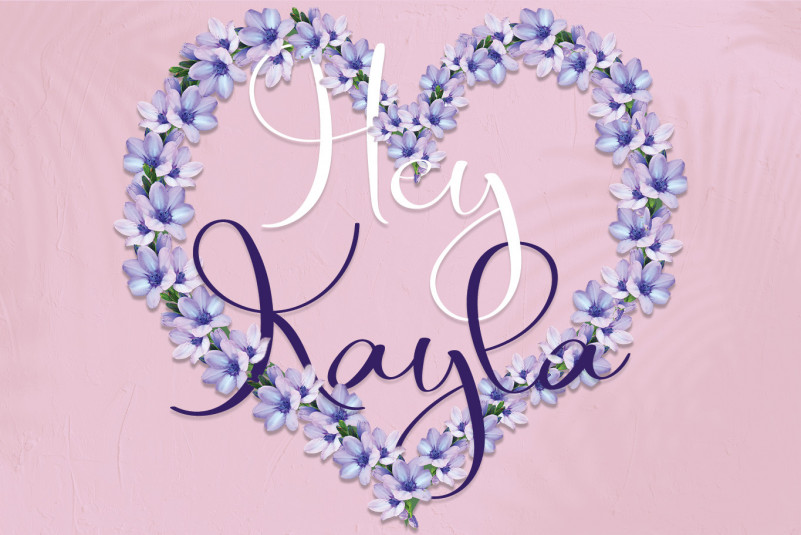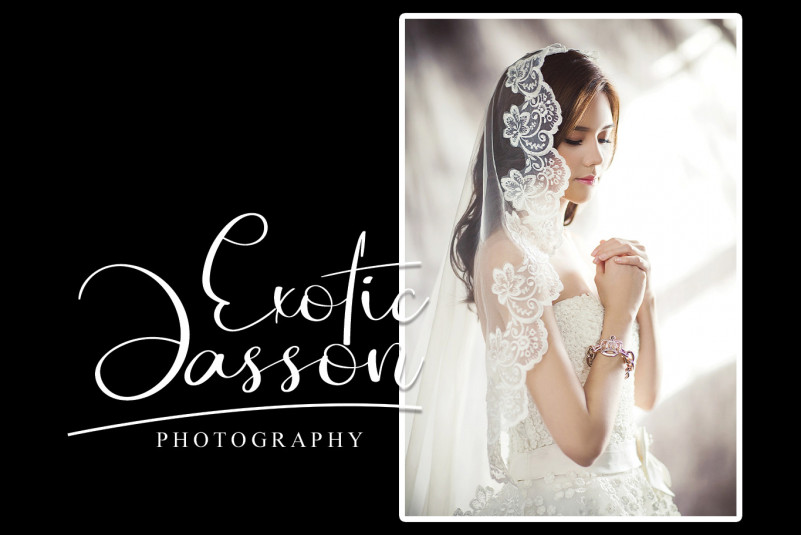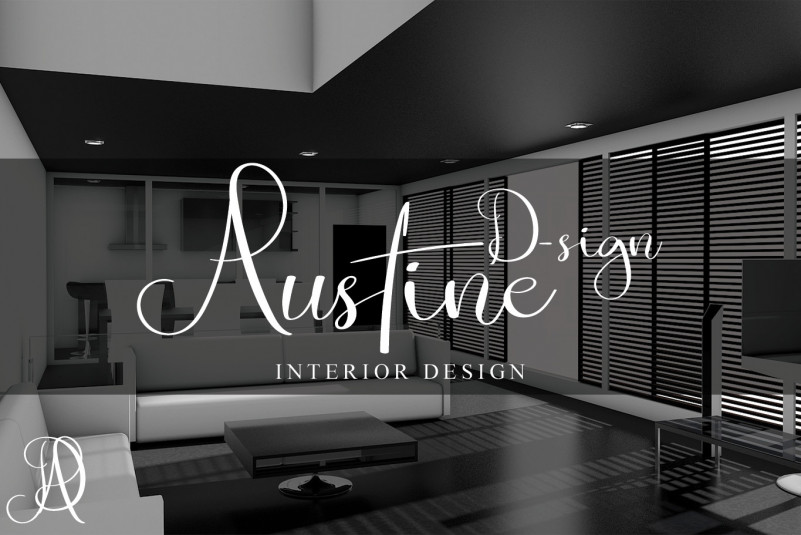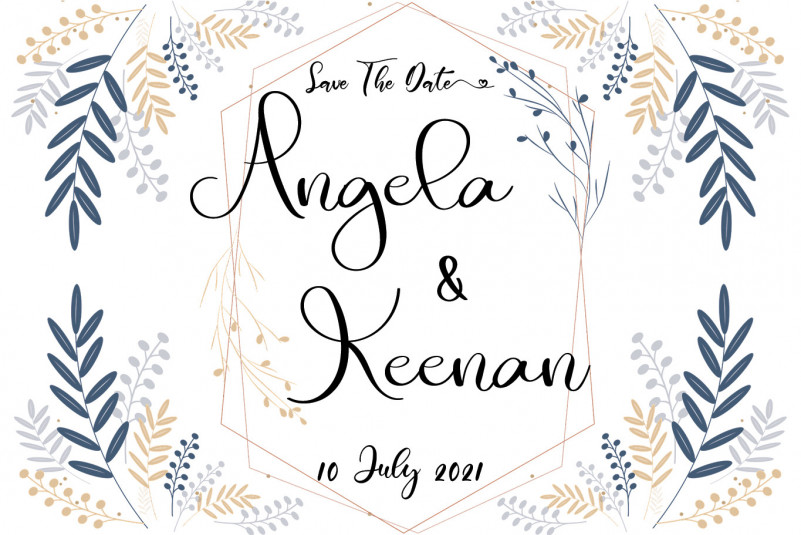
Exotic Font
Exotic Script Font
This is a lovely script font. This font is neatly crafted and highly detailed. Whatever the topic, this font will be a wonderful asset to your font library, as it has the potential to enhance any creation.